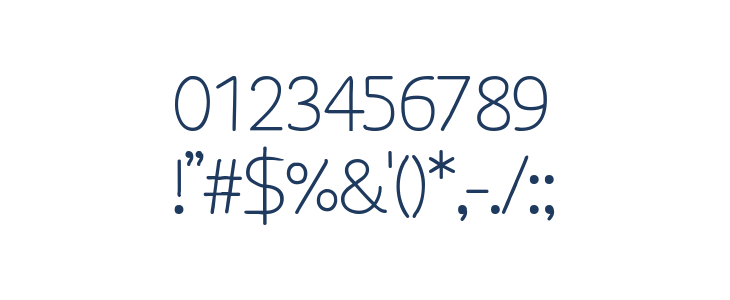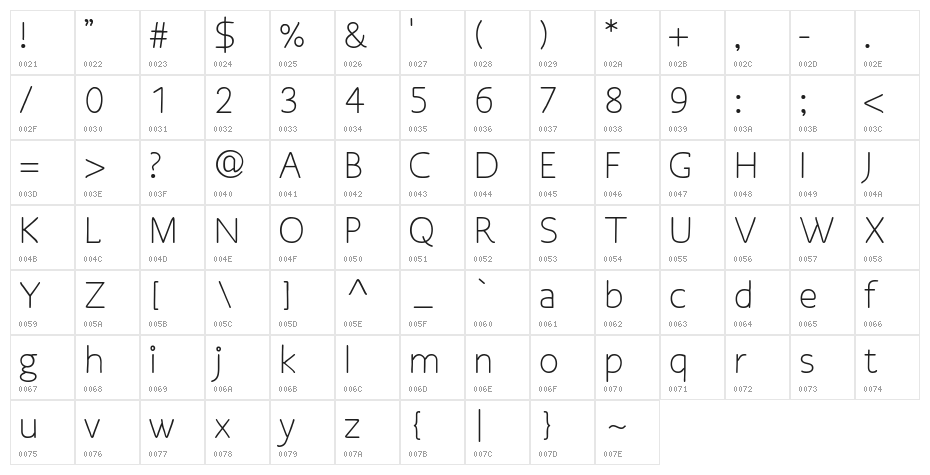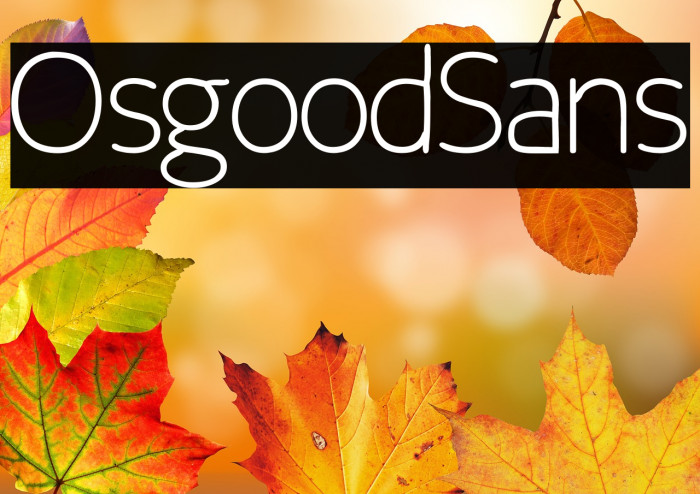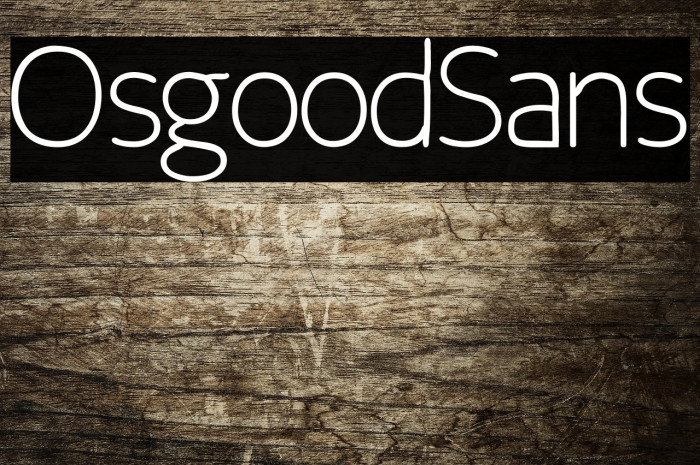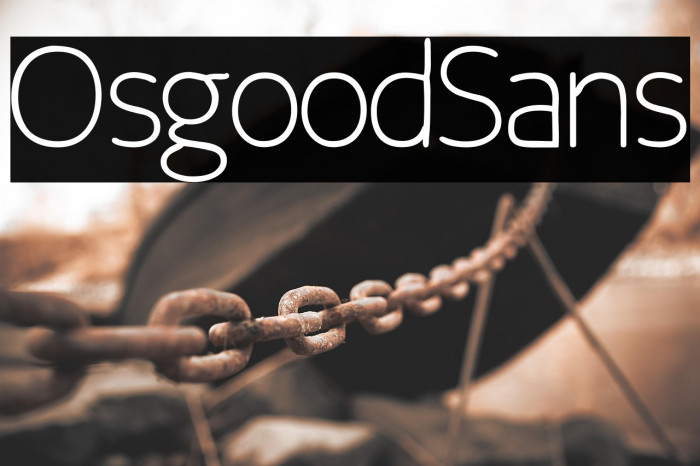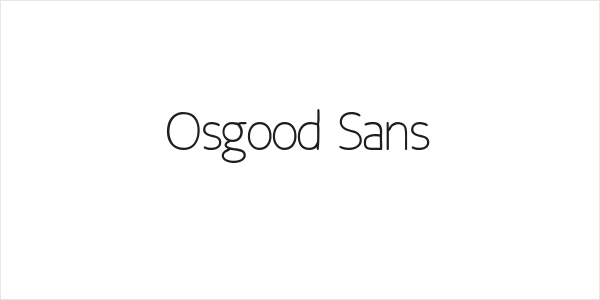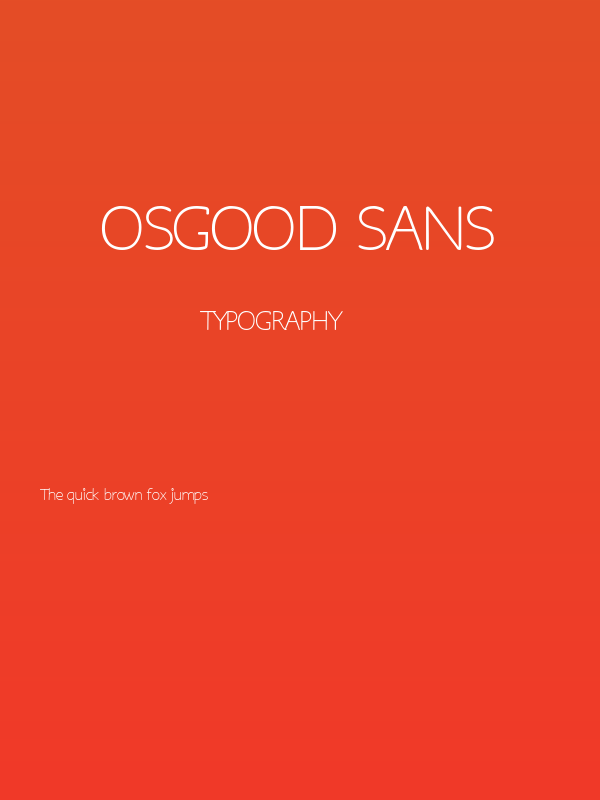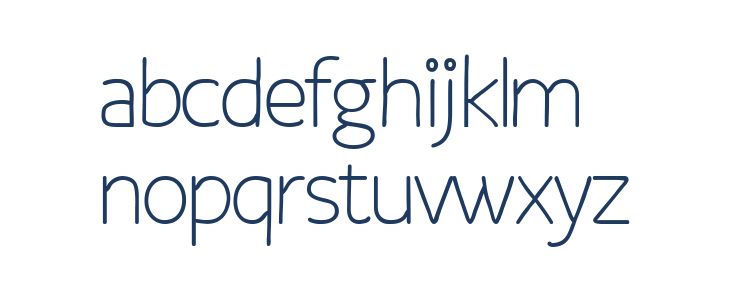
Osgood Sans Font
Osgood Sans Description
This font features a clean and modern sans-serif design with a geometric structure. The characters are evenly spaced, providing a balanced and harmonious appearance. The uppercase letters are tall and slightly narrow, while the lowercase letters maintain a consistent height, contributing to a uniform look. The numerals are clear and legible, making them suitable for various applications. Special characters are designed with simplicity, ensuring they blend seamlessly with the rest of the typeface. The overall style is minimalistic, making it versatile for both digital and print media.